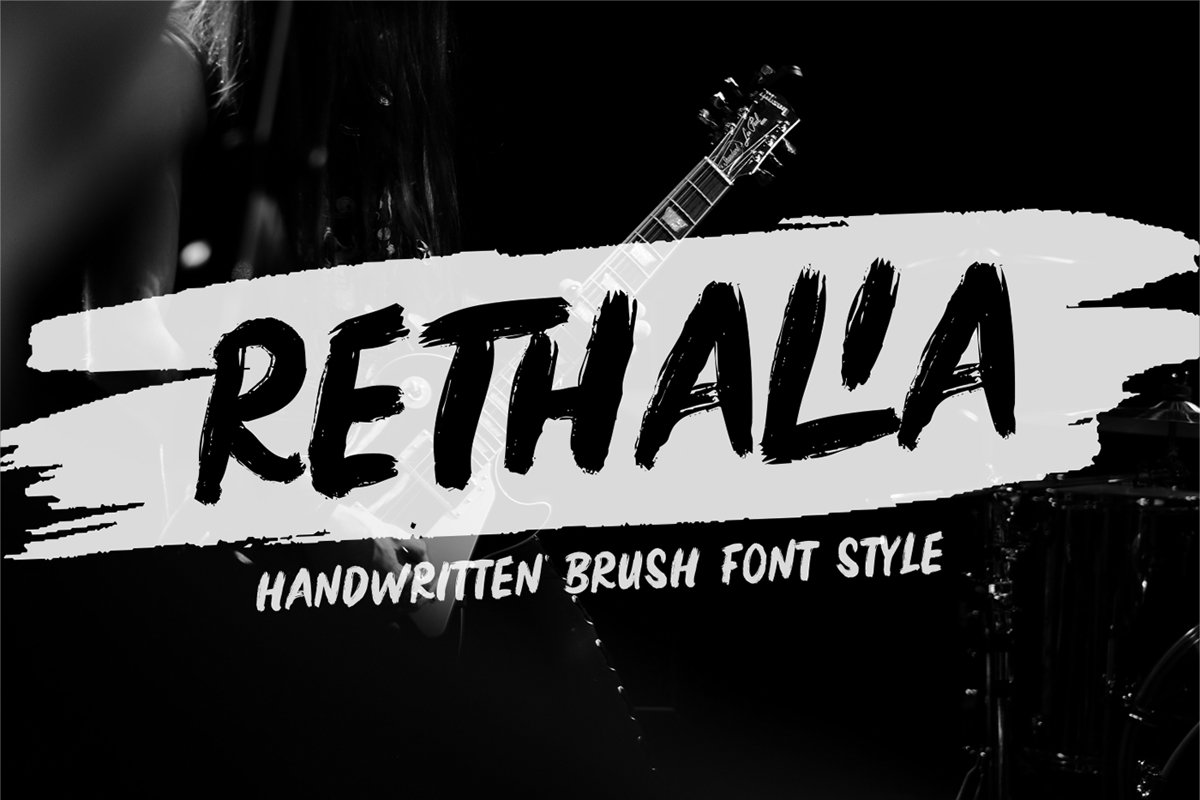
Rethalia
Rethalia is a friendly and chunky-charactered display font, designed with the help of a brush pen. Add it to your most creative ideas and notice how it makes them stand out!